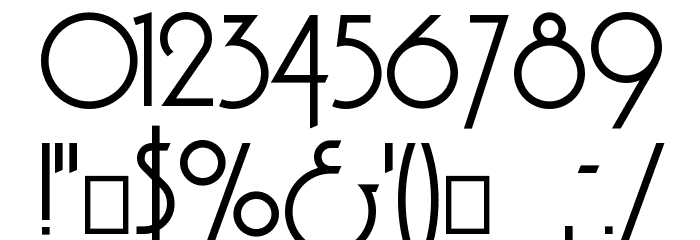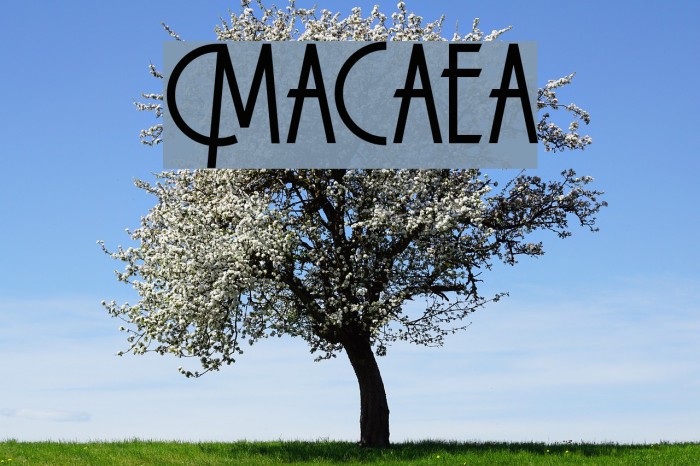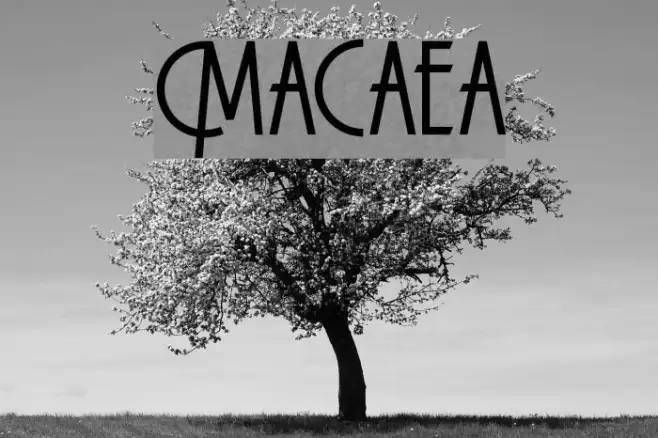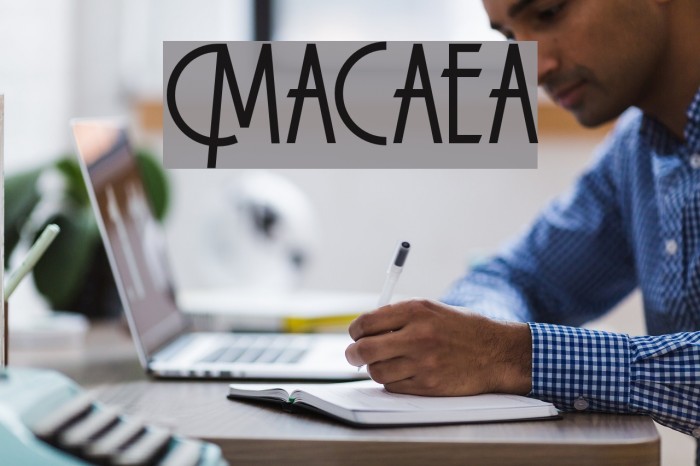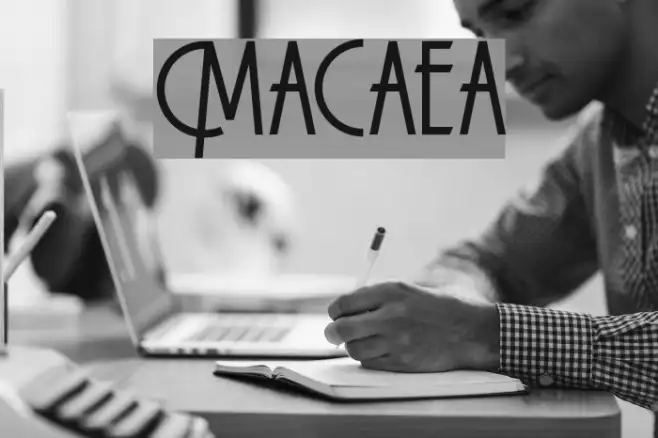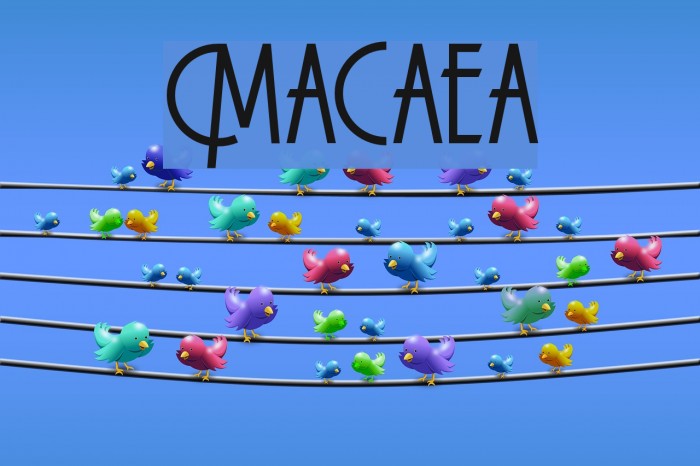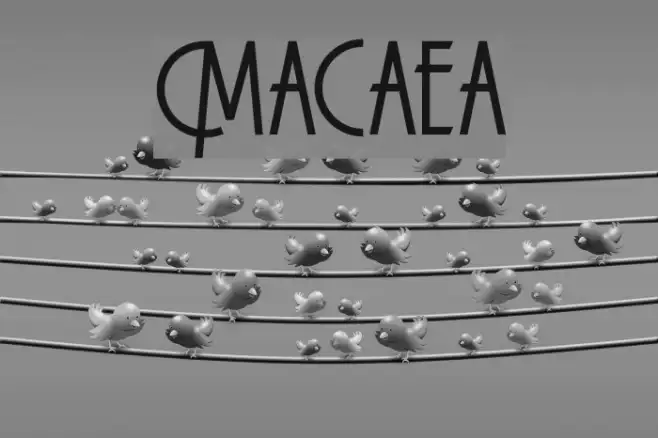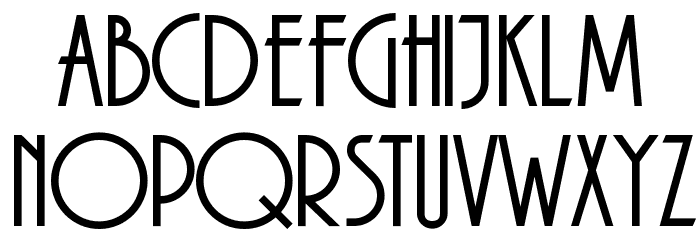
Macarena Font
Macarena Description
This font features a unique and artistic design with a blend of geometric and decorative elements. The uppercase letters are characterized by their bold, angular shapes, often incorporating circular and semi-circular motifs that create a sense of movement and rhythm. The lowercase letters maintain a consistent style, with clean lines and a modern aesthetic. The numerals are distinct and easy to read, while the special characters add a touch of flair with their creative forms. Overall, the font exudes a sense of elegance and sophistication, making it suitable for a variety of design projects.